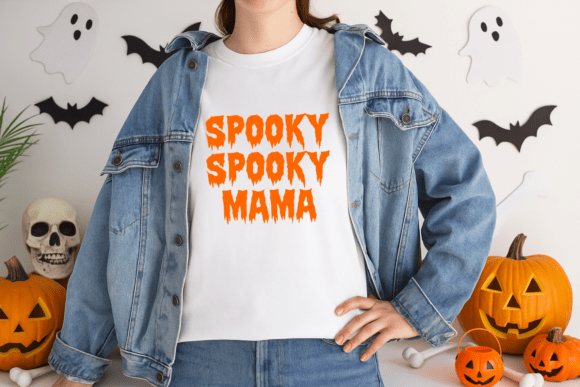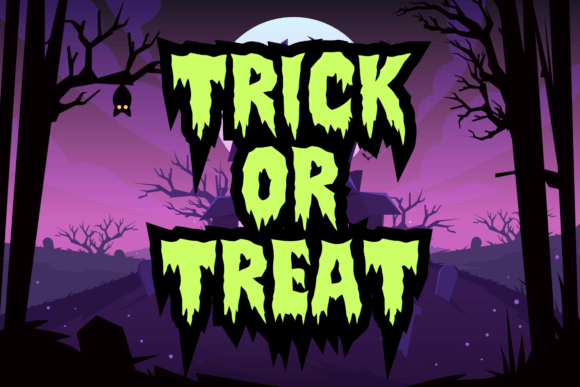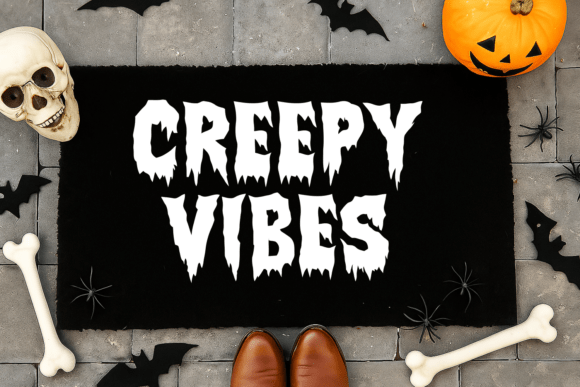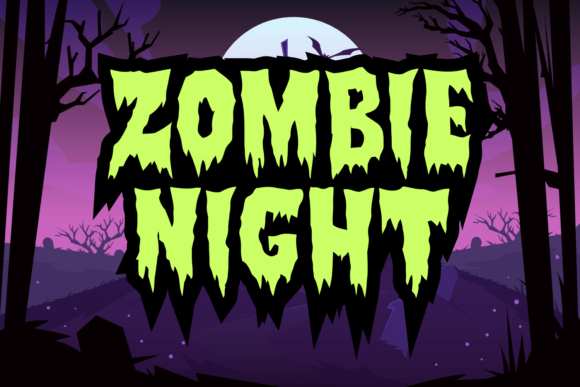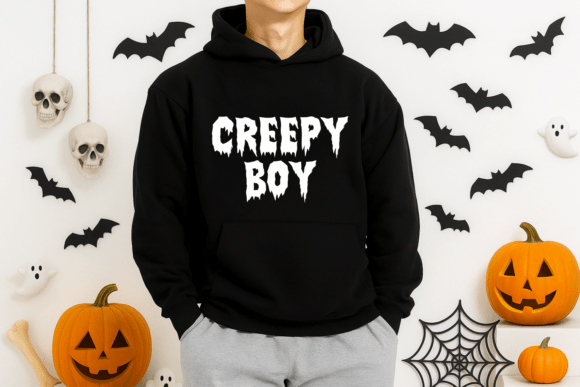
Introduction to Monster Season Font Font
Fonts play a crucial role in design, and the Monster Season Font font is a typeface that brings both character and versatility to any project. Whether you’re working on a branding project, a website, or a print design, the Monster Season Font font offers a unique style that can elevate your work.
Dive into the captivating world of Monster Season, an exquisite font that artfully intertwines otherworldly and whimsical elements to create a unique design.
Engraved with an unmistakable spectral allure, this mesmerizing font breathes life and uniqueness into your design ideas Monster Seasonβs intrigue lies within its rare capability to create a perfect equilibrium of melancholic and jubilant tones, providing a forward-thinking typographic option for creative endeavors craving a sprinkle of audacious charm.
Key Features of Monster Season Font Font
Why Choose Monster Season Font Font?
The Monster Season Font font is more than just a typeface β it’s a design tool that helps you communicate your message with style and clarity. Its unique character set and versatile design make it suitable for a wide range of applications, from elegant invitations to bold headlines.
With its carefully crafted letterforms and balanced proportions, the Monster Season Font font ensures readability and visual appeal across all mediums.
What makes Monster Season Font font special?
The Monster Season Font font stands out with its unique design, exceptional readability, and versatility across various design applications.